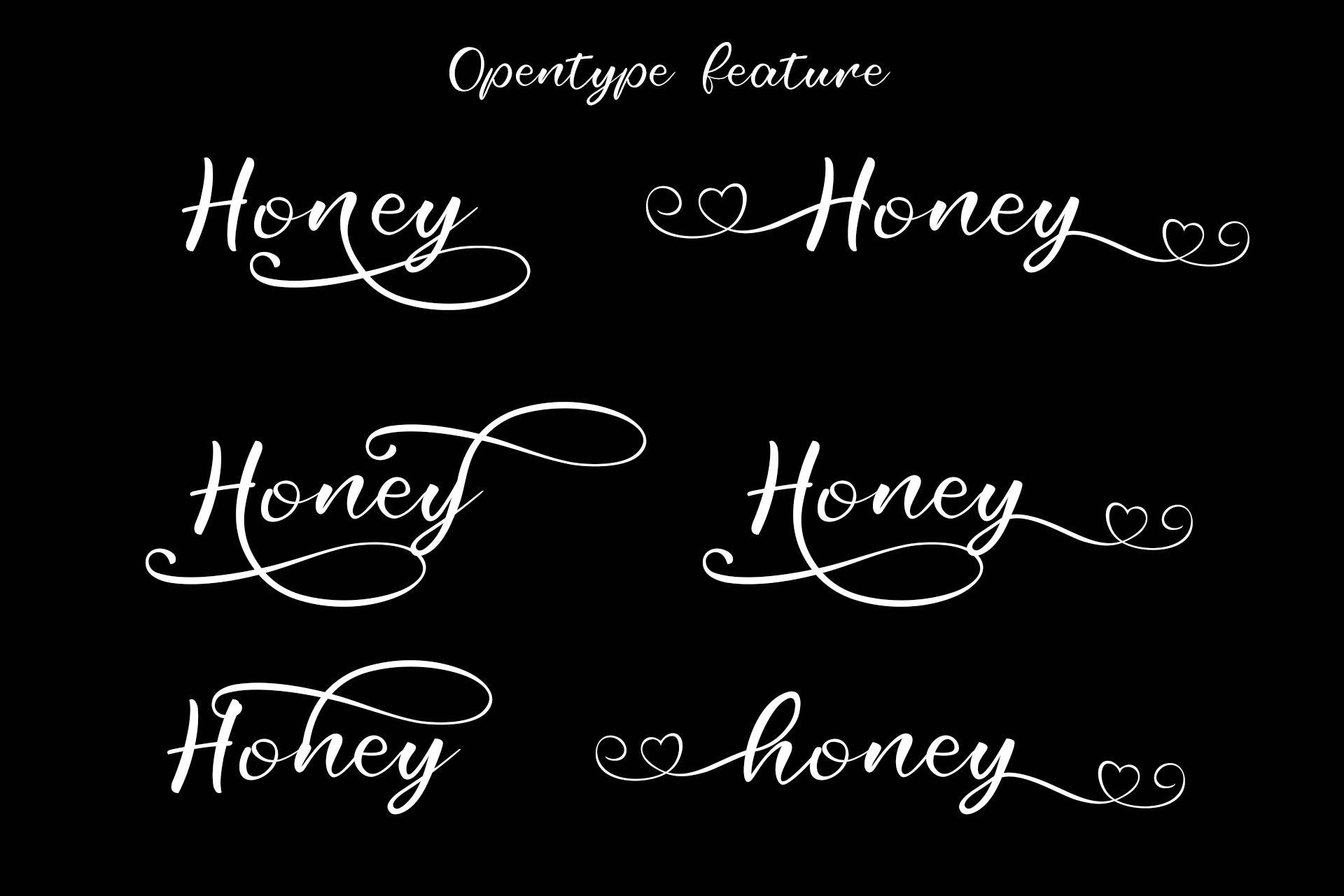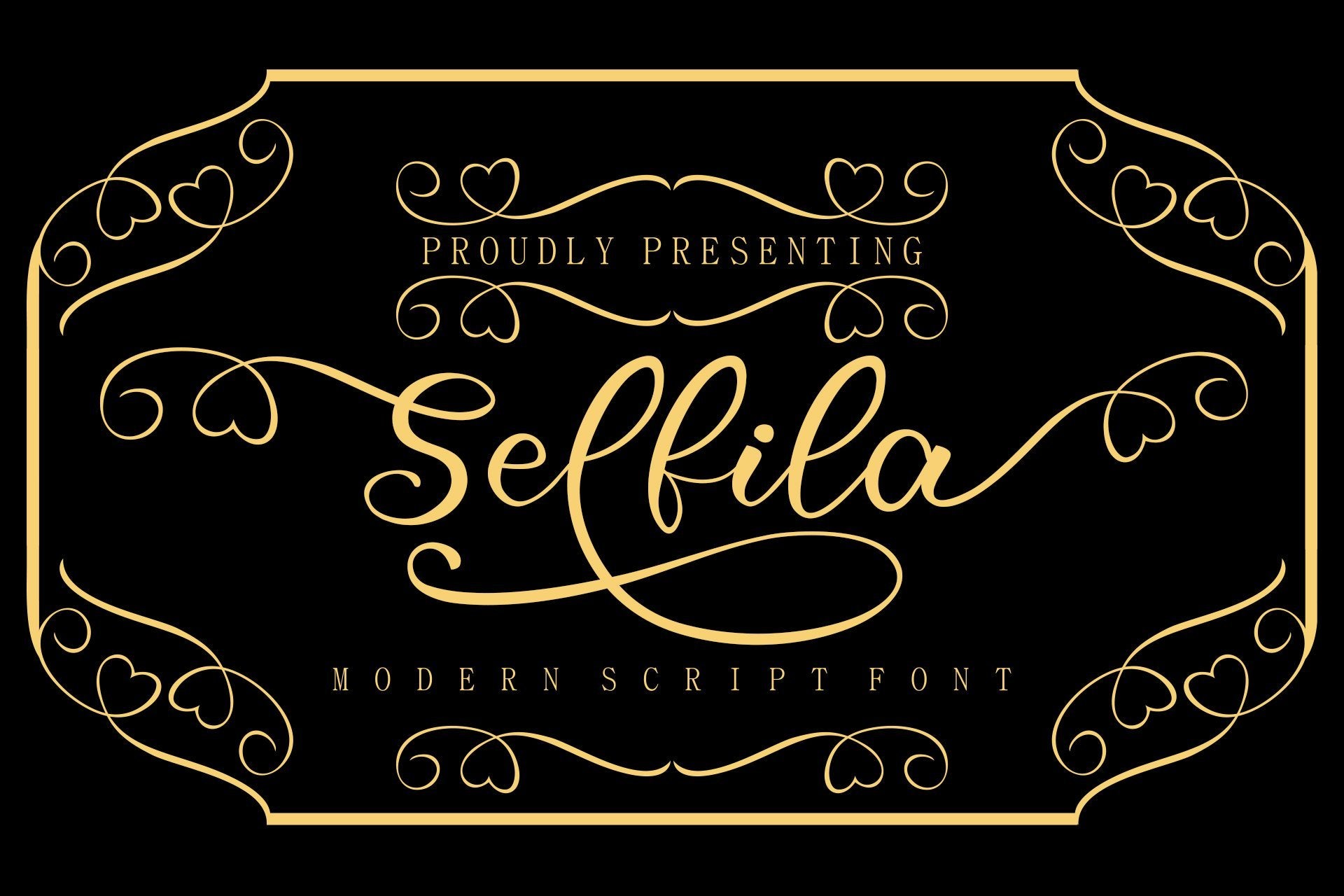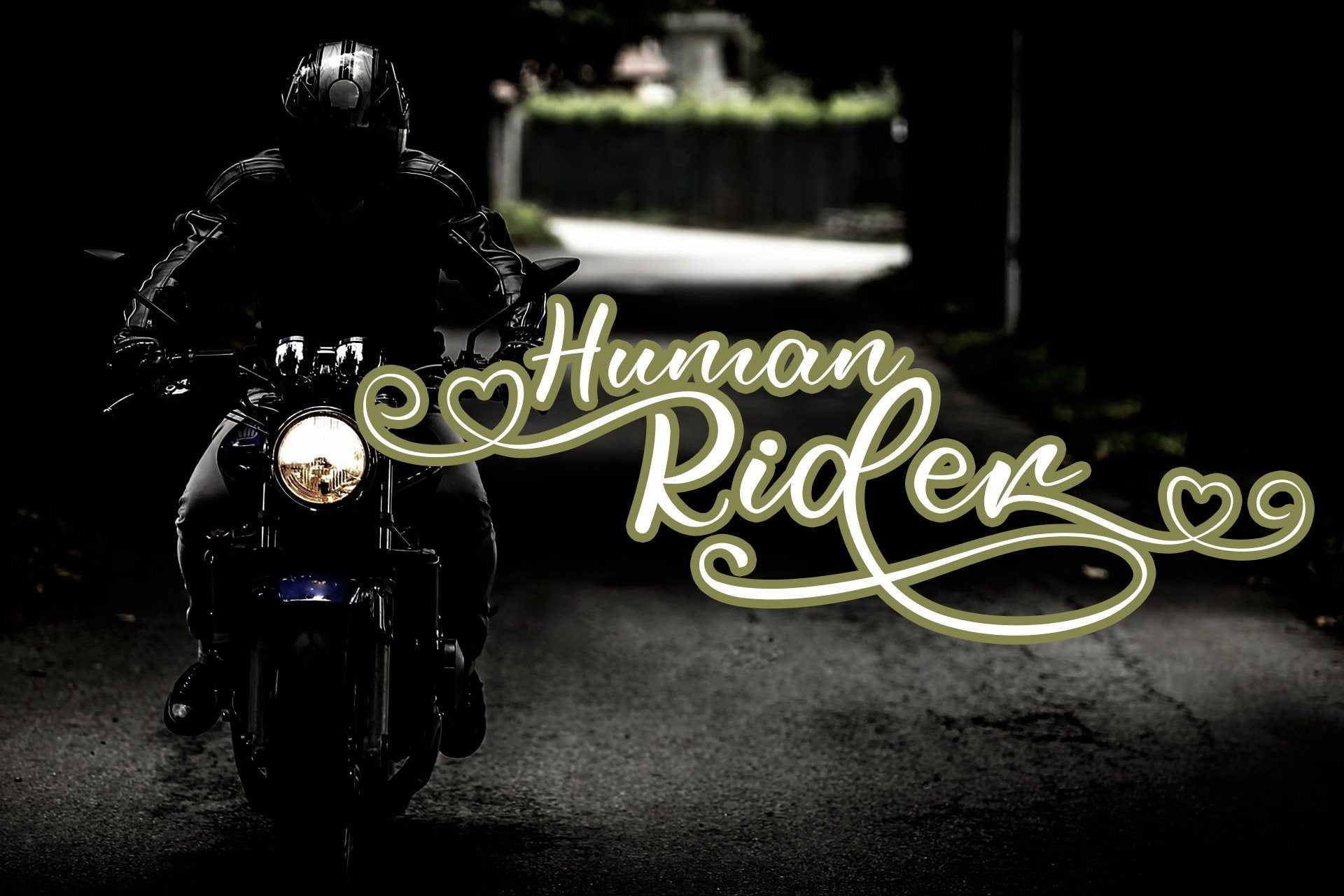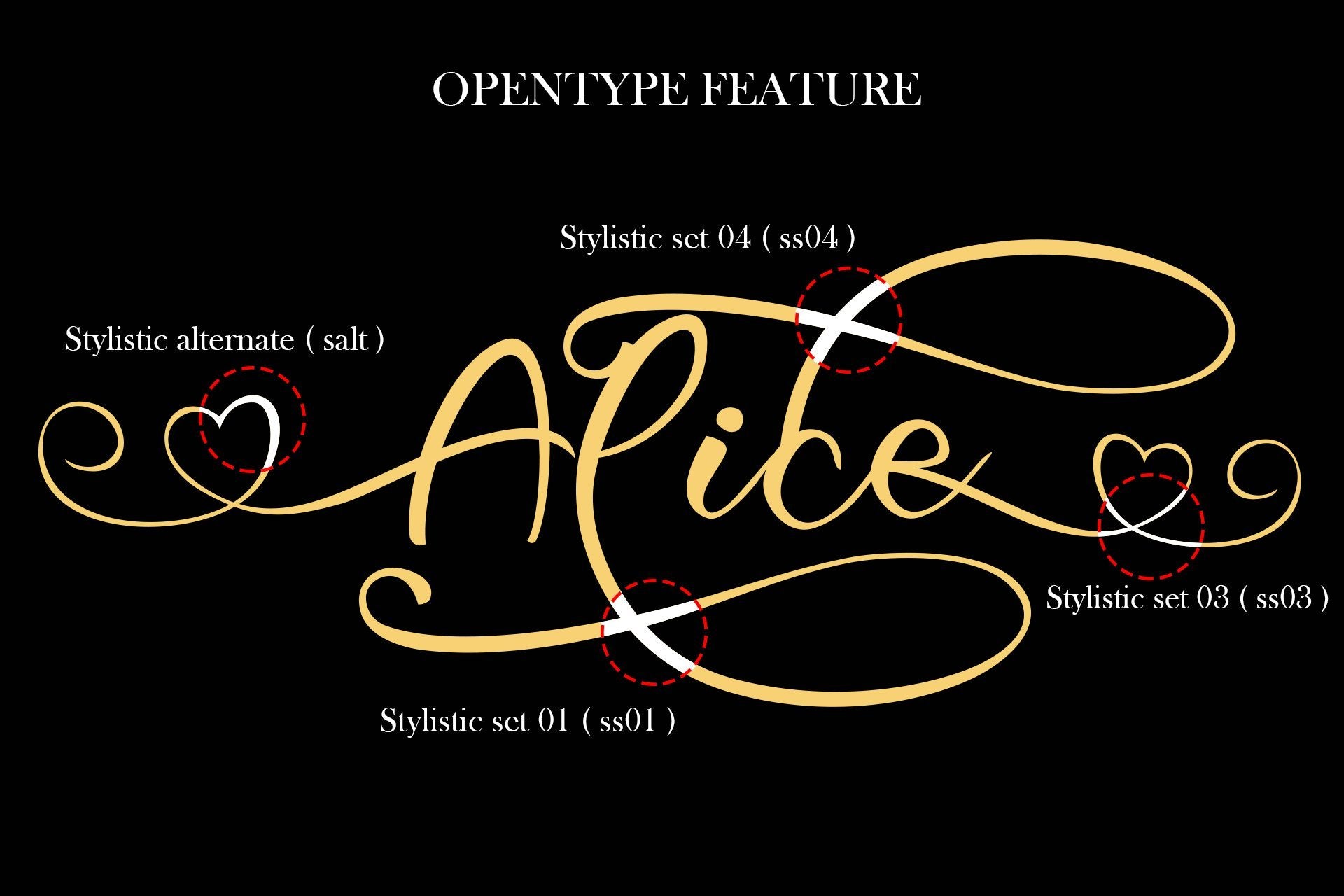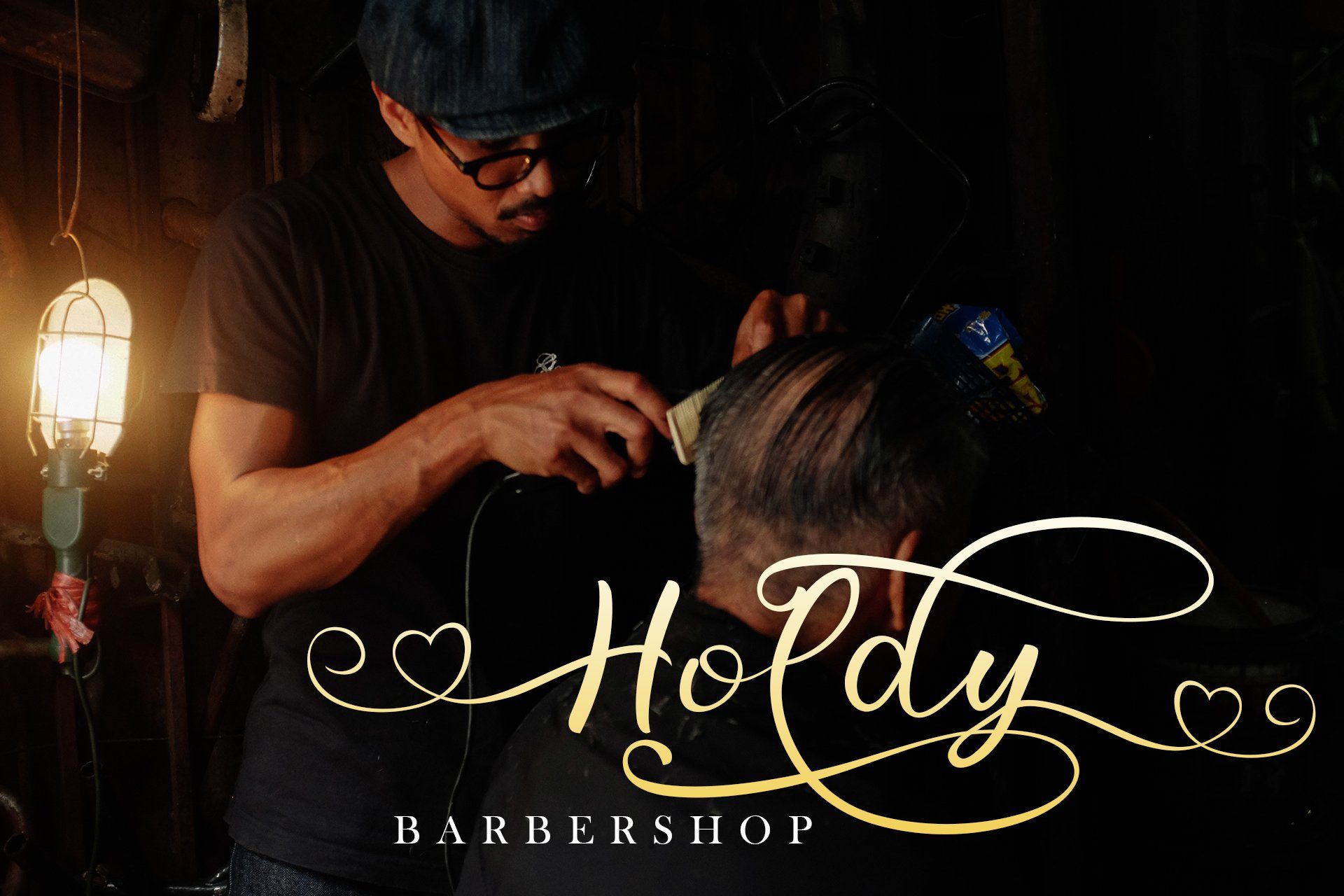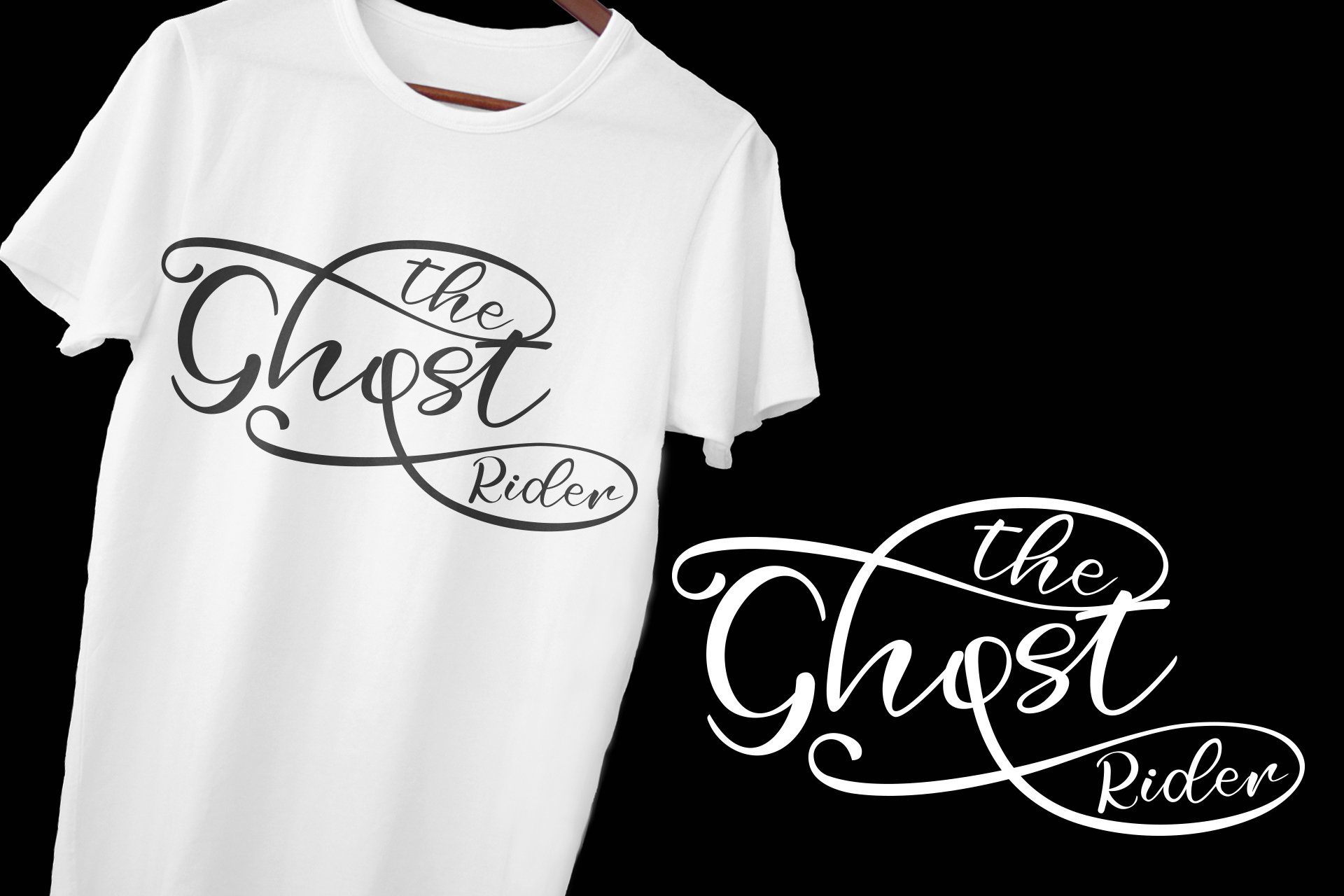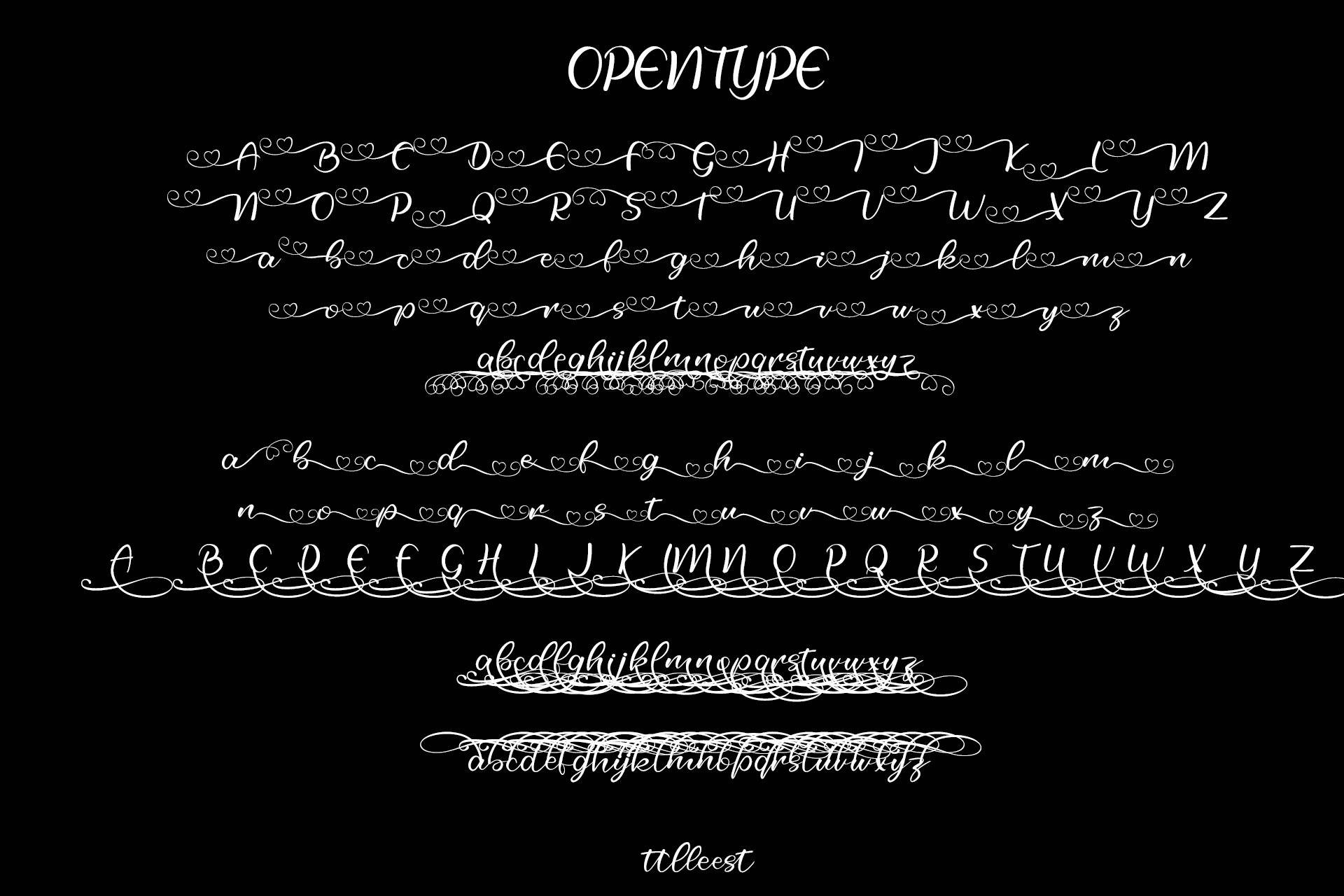
Selfila Beauty Script
About Selfila Beauty Script
Selfila is a beautiful and beautiful font script in terms of shape and writing. Selfila is perfect for commercial purposes such as t-shirt, logo, cover, company design and many more **What’s include:**\ Selfila Script Otf\ Selfila Script Ttf\ Ligature\ Stylistic set for lowercase\ Stylistic set for Ending\ PUA Encoded Characters – Fully accessible without additional design software.\ Basic Latin Language Support (AÀÁÂÃÄÅCÇDÐEÈÉÊËIÌÍÎÏÑOØÒÓÔÕÖUÙÜÚÛWYÝŸÆß ) How to access alternate glyphs? you can see it on this link ( http://goo.gl/1vy2fv )